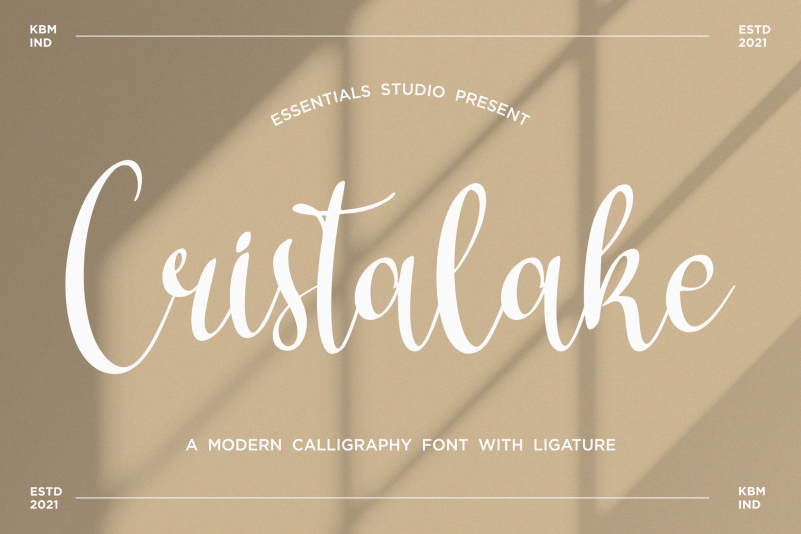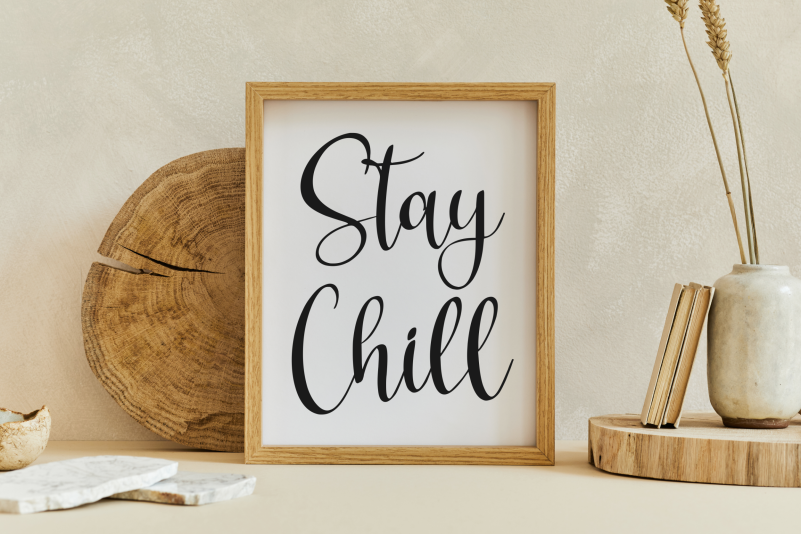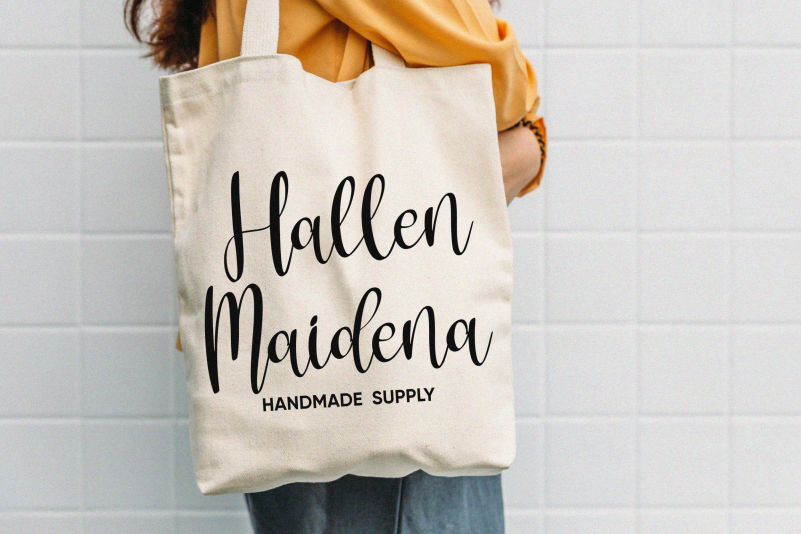
Cristalake Typeface
Cristalake Typeface Is a Modern Caligraphy Font. Cristalake is perfect for product packaging, branding project, megazine, social media, wedding, or just used to express words above the background.